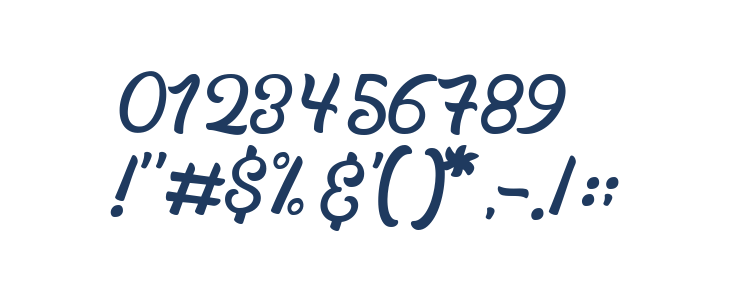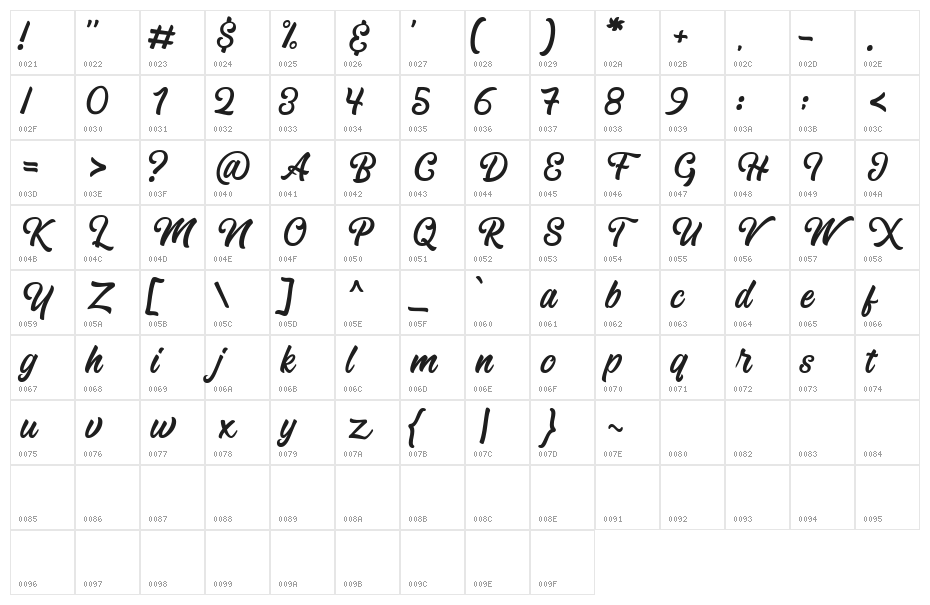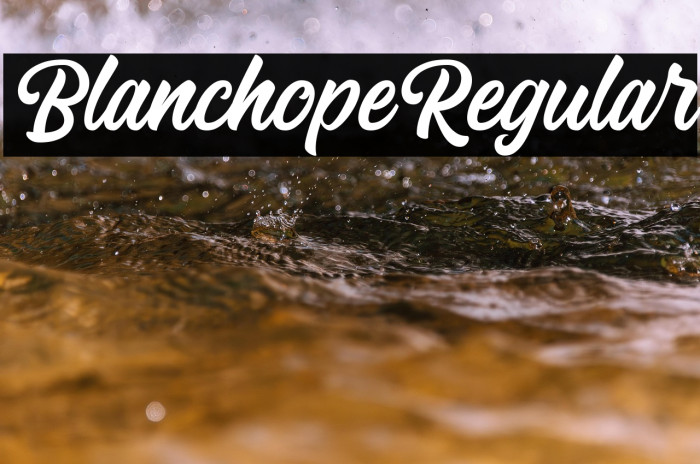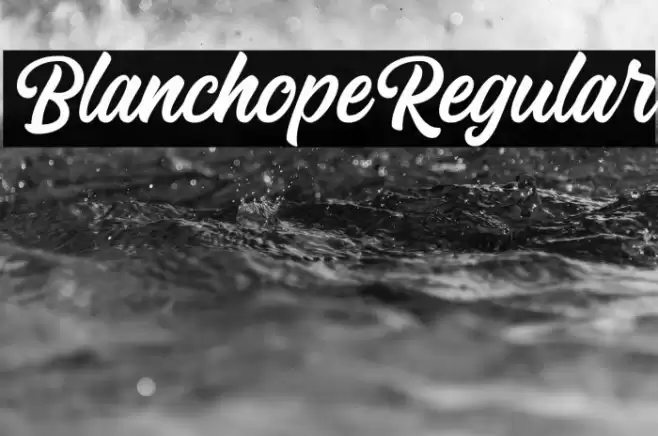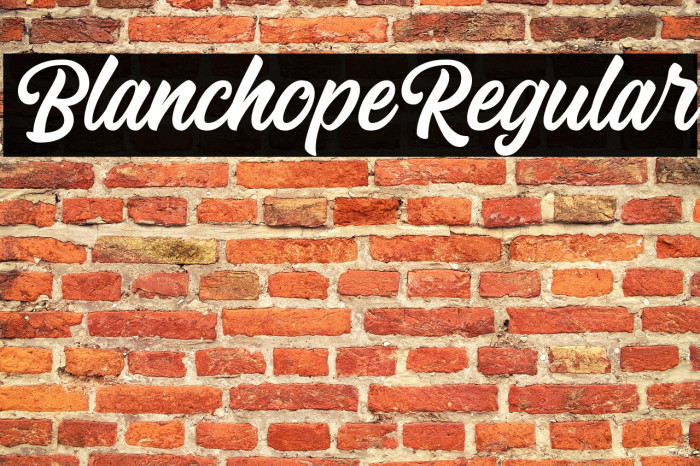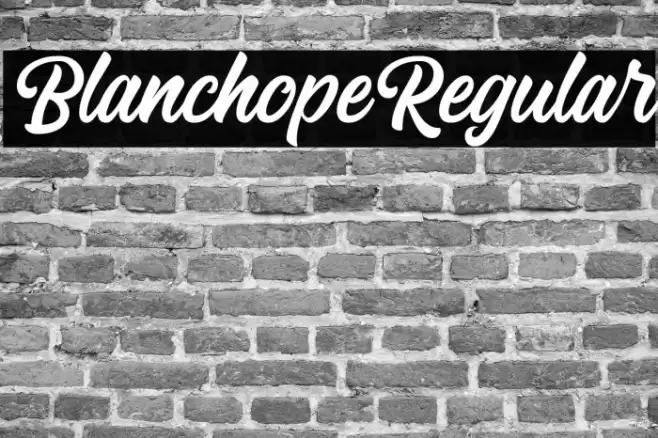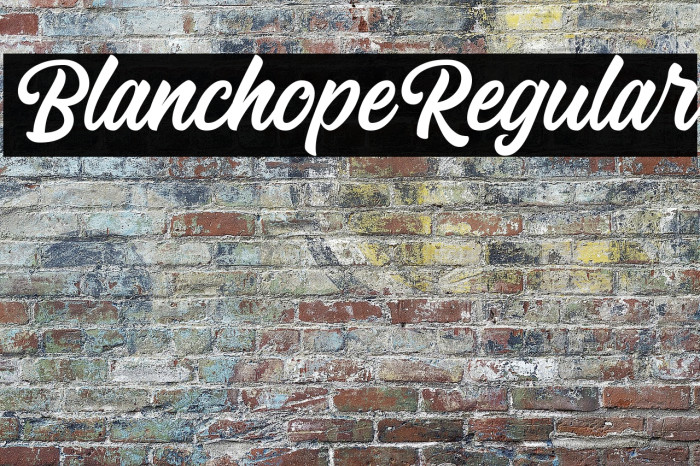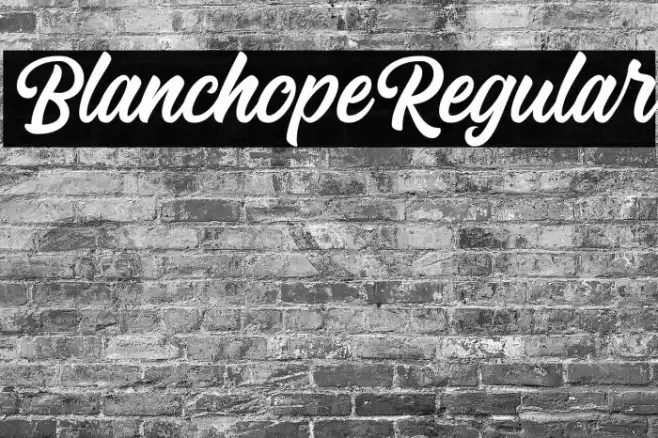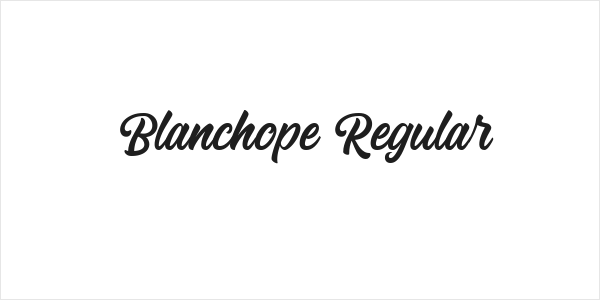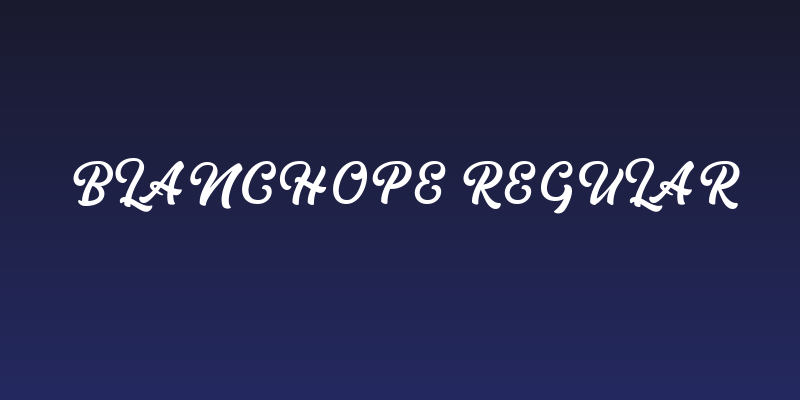
Blanchope Regular Font
Blanchope Regular Description
This font features a bold, cursive style with smooth, flowing lines that give it a dynamic and elegant appearance. The uppercase letters are slightly more ornate, with sweeping curves and a sense of movement, while the lowercase letters maintain a consistent, rounded form that enhances readability. The numerals are well-proportioned, matching the overall aesthetic of the alphabet. Special characters are integrated seamlessly, maintaining the font's cohesive look. This font is ideal for projects that require a touch of sophistication and flair, making it suitable for invitations, branding, and decorative purposes.
| Proposed Projects | Ideal for wedding invitations, branding materials, greeting cards, and decorative signage. |